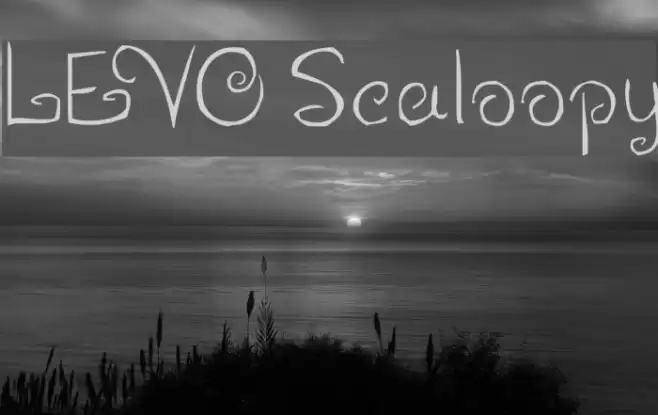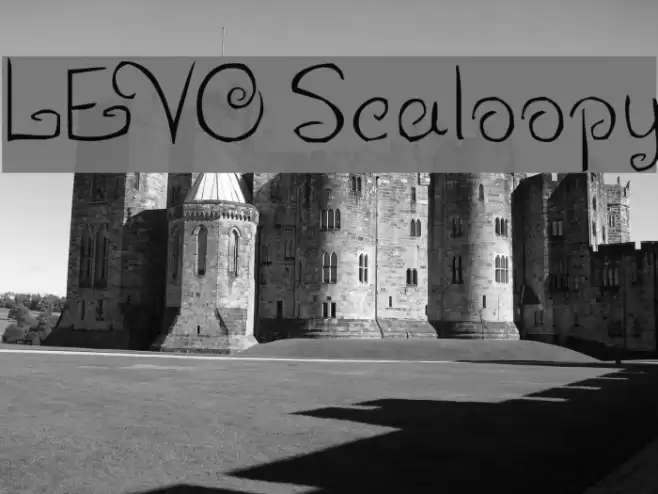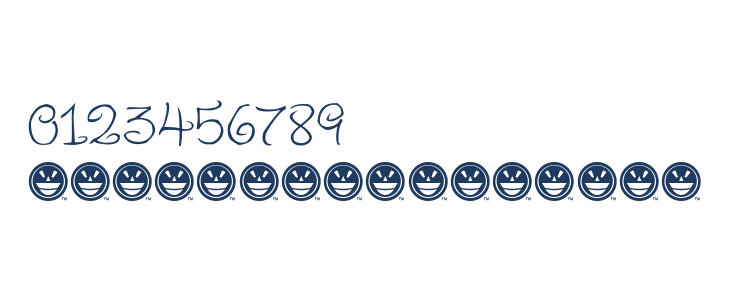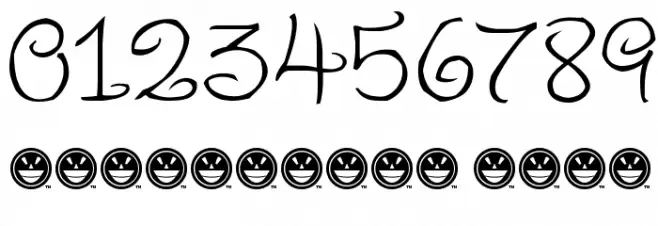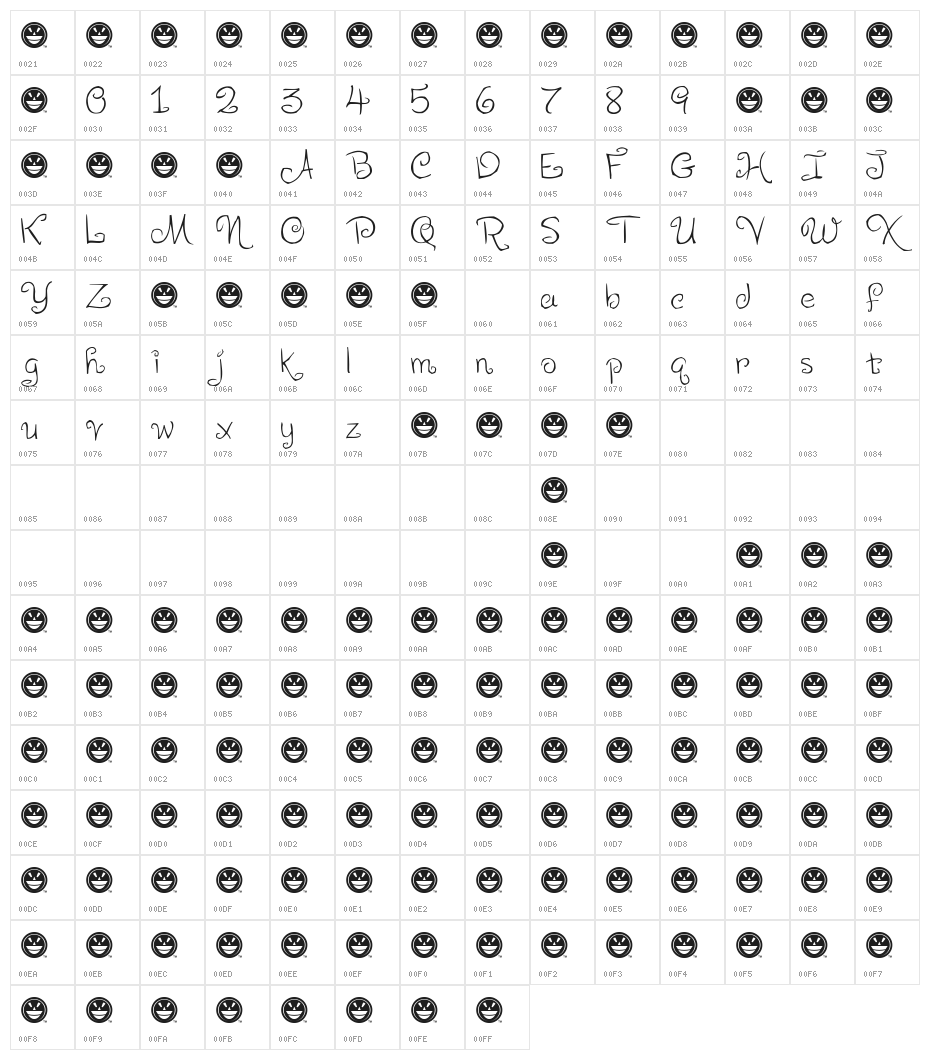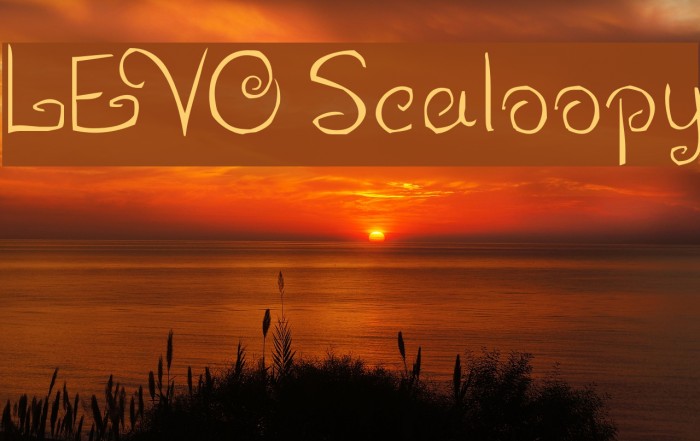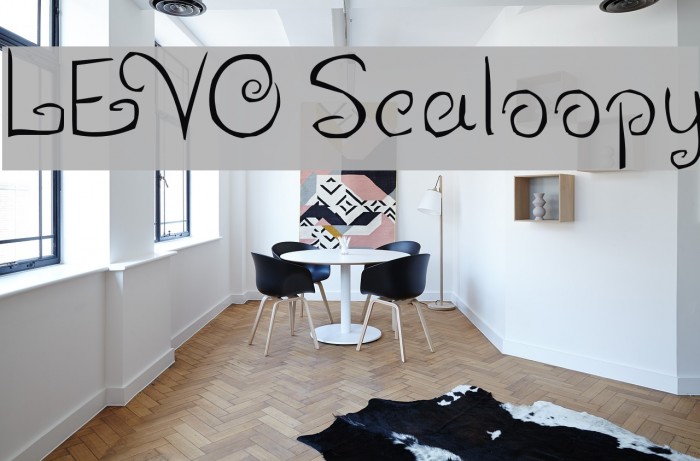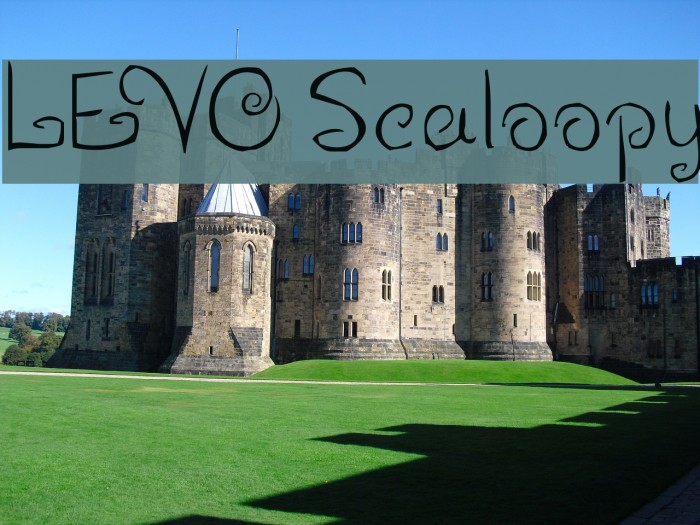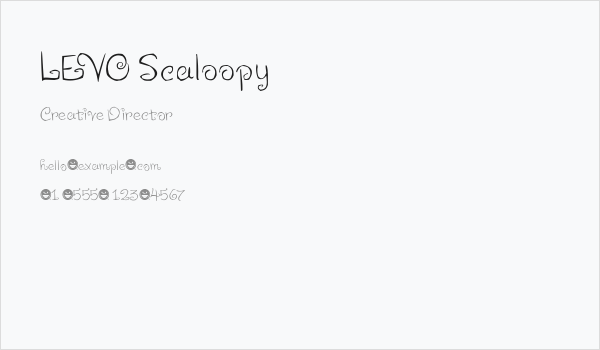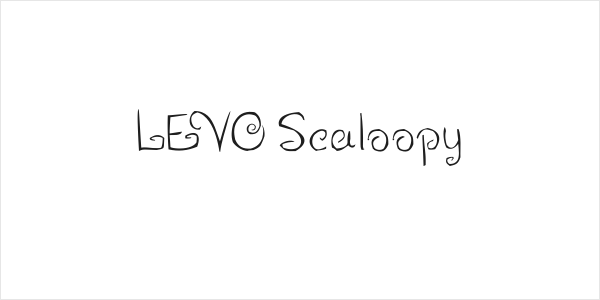
LEVO Scaloopy Font
LEVO Scaloopy Description
This whimsical and playful font features a unique blend of curvy and looped strokes, giving it a lively and animated appearance. The uppercase letters exhibit a distinct flair with exaggerated curves and swirls, while the lowercase letters maintain a consistent, yet quirky style. The numerals are bold and rounded, complementing the overall design. The font's special characters, including symbols like the dollar sign and ampersand, are crafted with the same playful essence, making them stand out. This font is perfect for projects that require a touch of fun and creativity, such as children's books, playful branding, or artistic posters.
A whimsical and playful font with curvy, looped strokes and a lively appearance from Uncategorized fonts.
- Proposed Projects: Ideal for children's books, playful branding, artistic posters, and creative invitations.
- Overall Style: Playful, Whimsical
- Use Case: Headlines, Logos, Creative projects